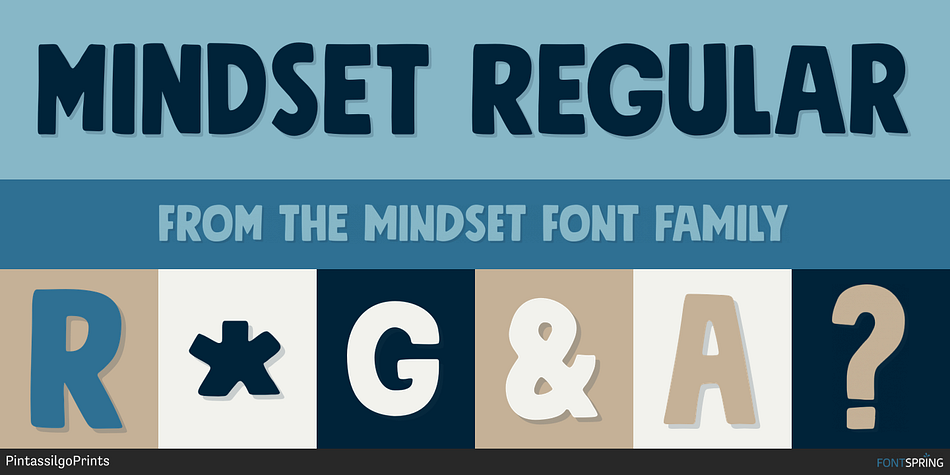
MINDSET REGULAR
Designed by Ricardo Marcin and Erica Jung, Mindset is a dingbat and hand display font family. This typeface has three styles and was published by PintassilgoPrints.
Meet Mindset, an open-minded versatile hand-drawn family.
Its regular and slim cuts, both all-caps-with-alternates to convey a unique feel, fit countless purposes where a touch of hand​-done is welcome.
There’s yet a picture font with plenty of stylish graphic elements for added coolness. Give it a try and see for yourself.
It’s all in the mind, y’know.